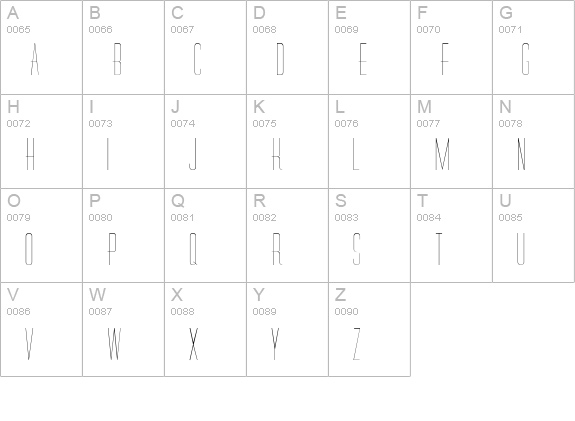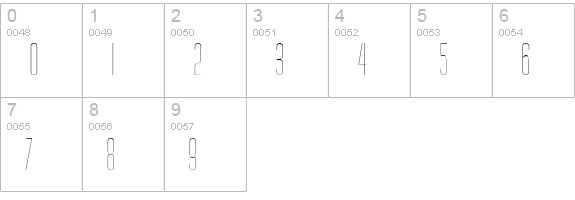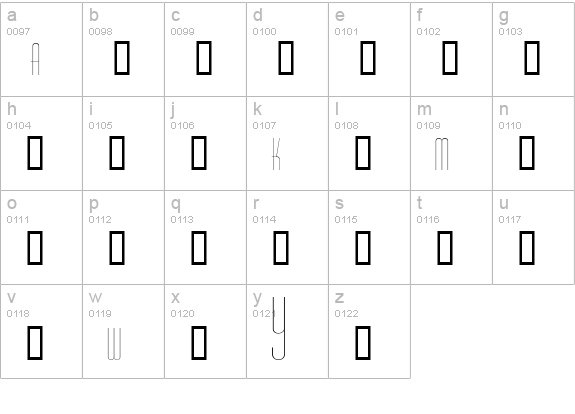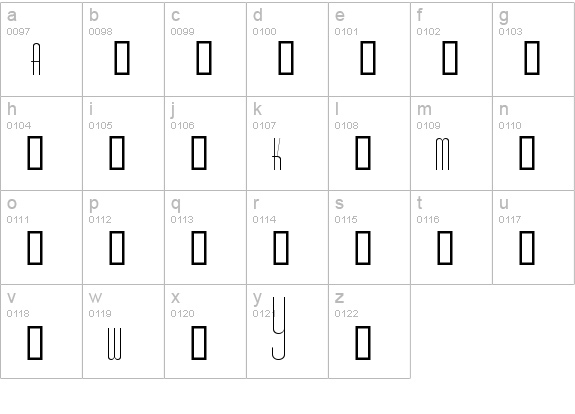
Diner Skinny font is a charming and retro-inspired typeface, perfect for adding a touch of nostalgia to your designs. With its slim and stylish letterforms, this font exudes a classic diner feel that is both playful and inviting. Whether you're working on a vintage poster, a menu design, or a branding project, Diner Skinny font is sure to capture attention and evoke a sense of nostalgia. Best of all, Diner Skinny font is available for free download at FontsMarket.com. That's right, you can add this delightful font to your collection without any cost. So why wait? Download Diner Skinny font today and infuse your designs with a touch of retro charm.